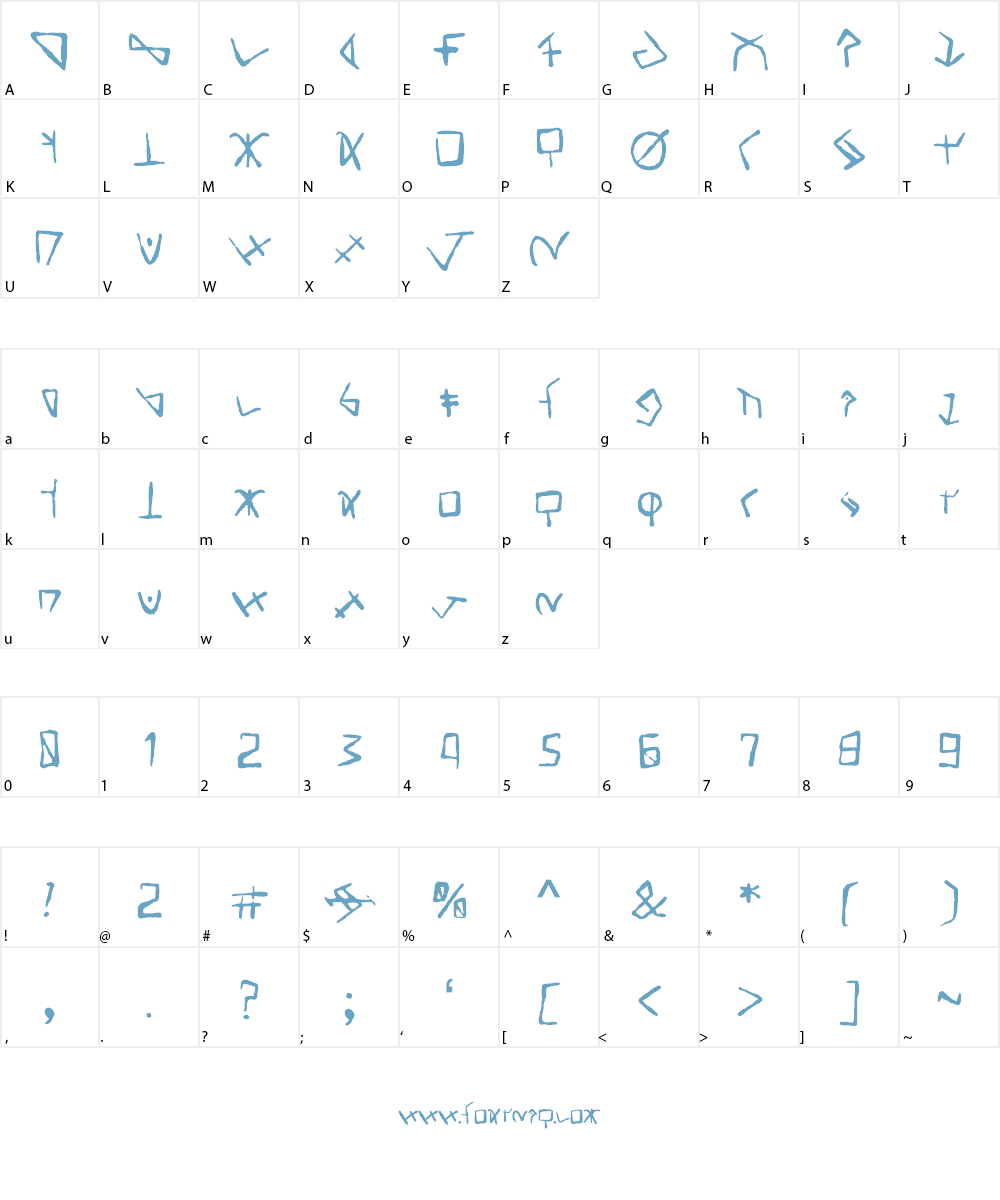
The written language of the Yugurians, a diverse society from the Chronicles of Yugure novel series! Here you can use the language of the mythical beings in whatever you like. Please give credit when credit is due. Many thanks for downloading!